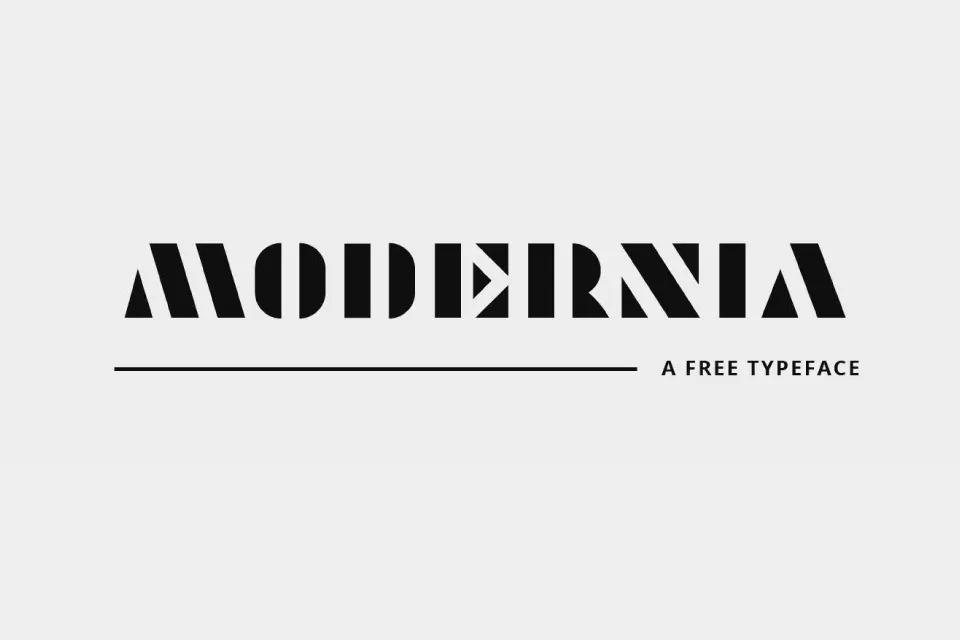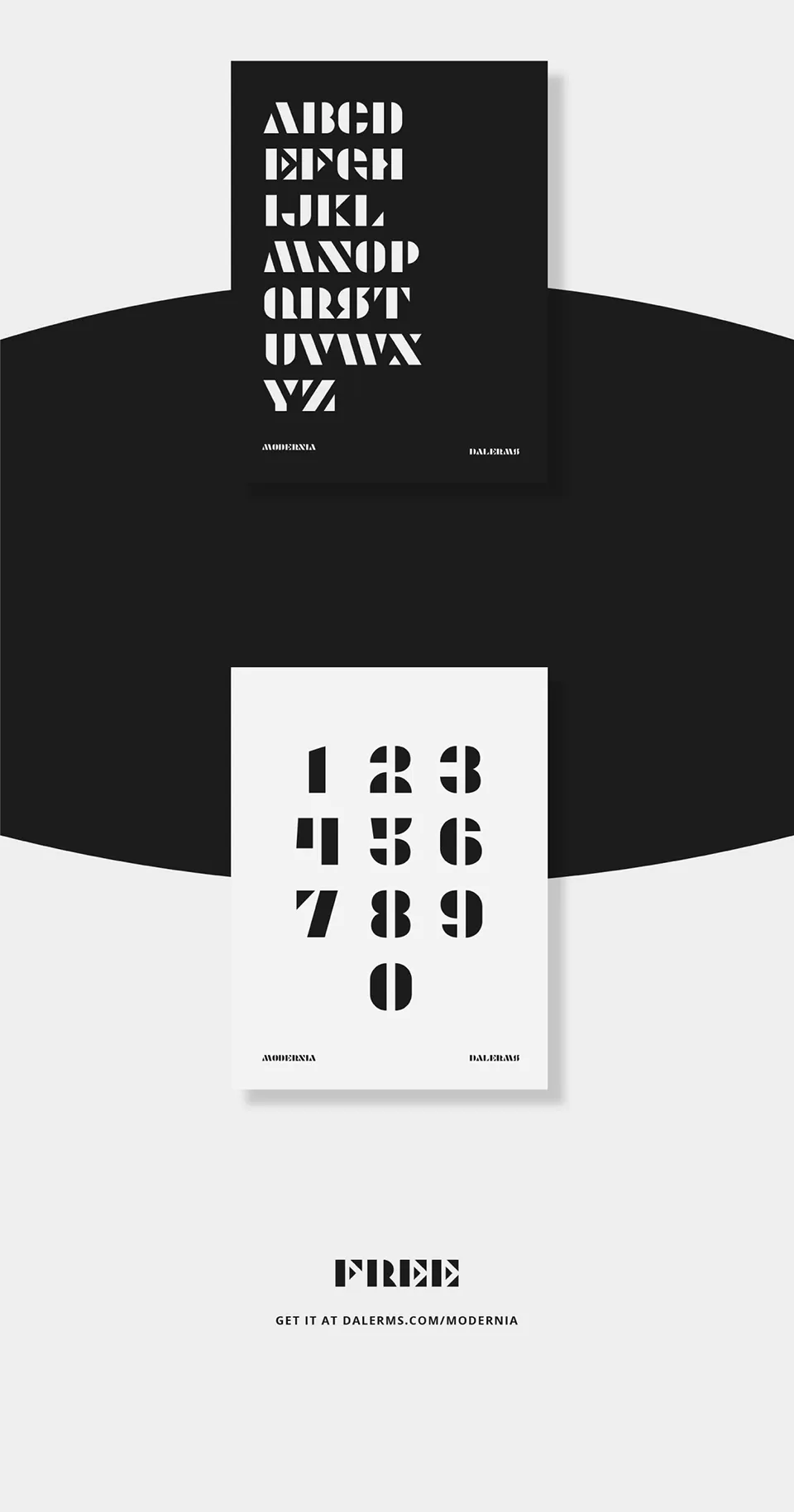
Modernia Font
Modernia Font is a contemporary typeface that seamlessly blends elegance with functionality. Designed for versatility, it features clean lines and a balanced structure, making it suitable for both print and digital applications. The font’s geometric shapes and subtle curves offer a modern aesthetic while maintaining readability, making it ideal for branding, advertising, and editorial design. With a range of weights and styles, Modernia Font allows designers to create striking visual hierarchies and engaging layouts. Its sophisticated yet approachable character ensures that it can adapt to various contexts, from corporate identities to creative projects, enhancing the overall design experience.